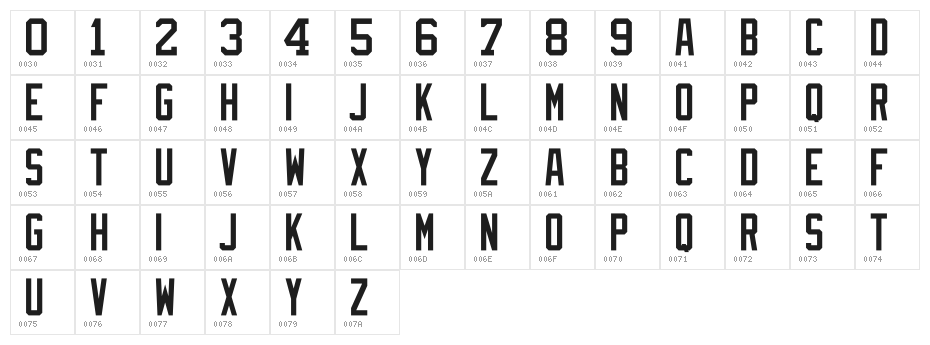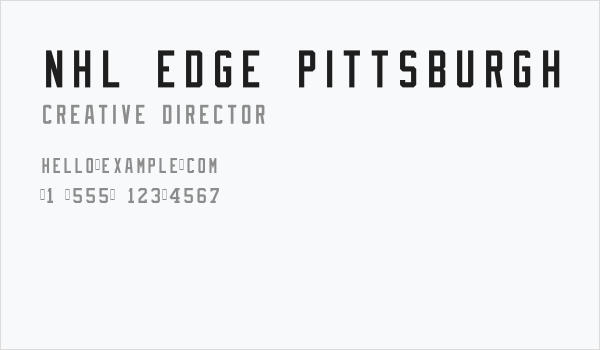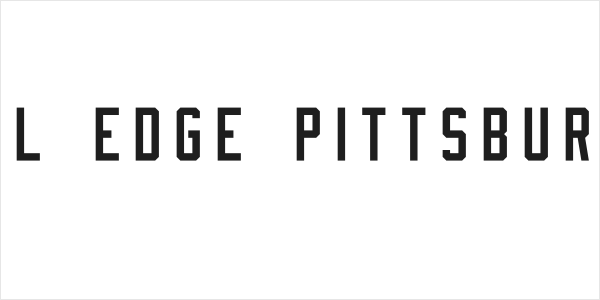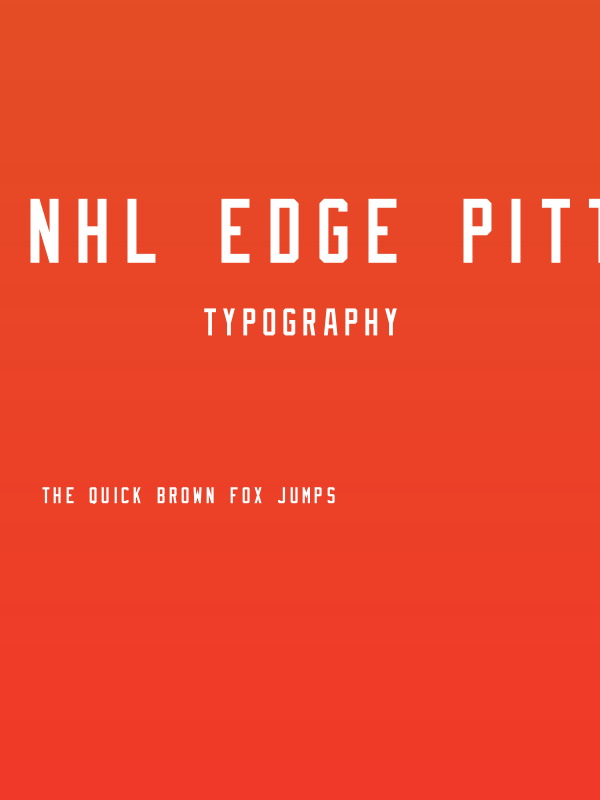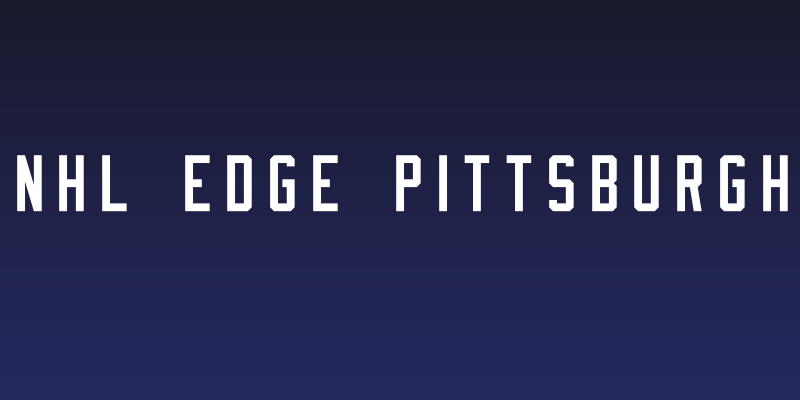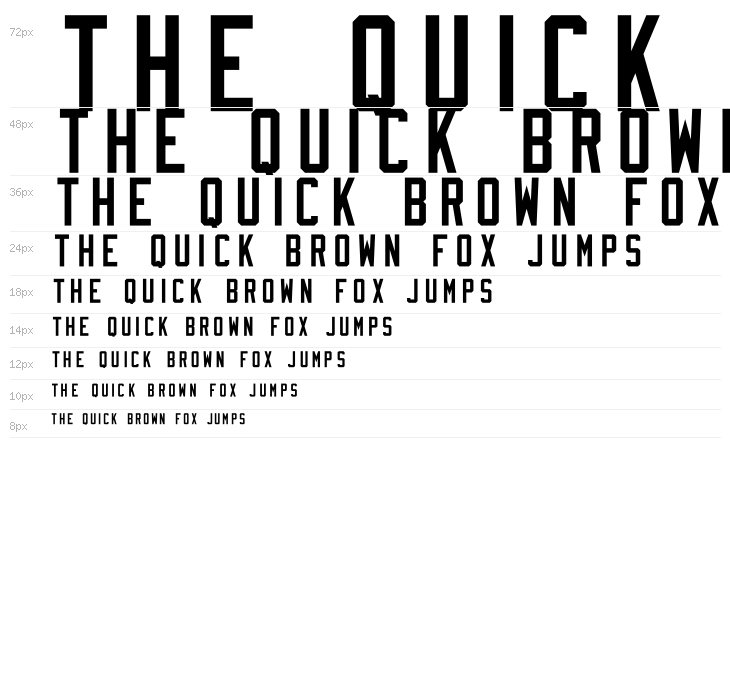
NHL Edge Pittsburgh Font
NHL Edge Pittsburgh Description
This font features a bold, geometric design with a strong presence. The uppercase letters are characterized by sharp angles and a blocky structure, giving them a modern and assertive look. The numerals follow a similar style, maintaining consistency across the typeface. The font's design is reminiscent of sports jerseys, with a focus on readability and impact. Its clean lines and uniform stroke width make it suitable for various applications where clarity and boldness are required. The special characters are designed to match the overall aesthetic, ensuring a cohesive appearance.
| Proposed Projects | Ideal for sports team branding, merchandise, posters, and headlines. |